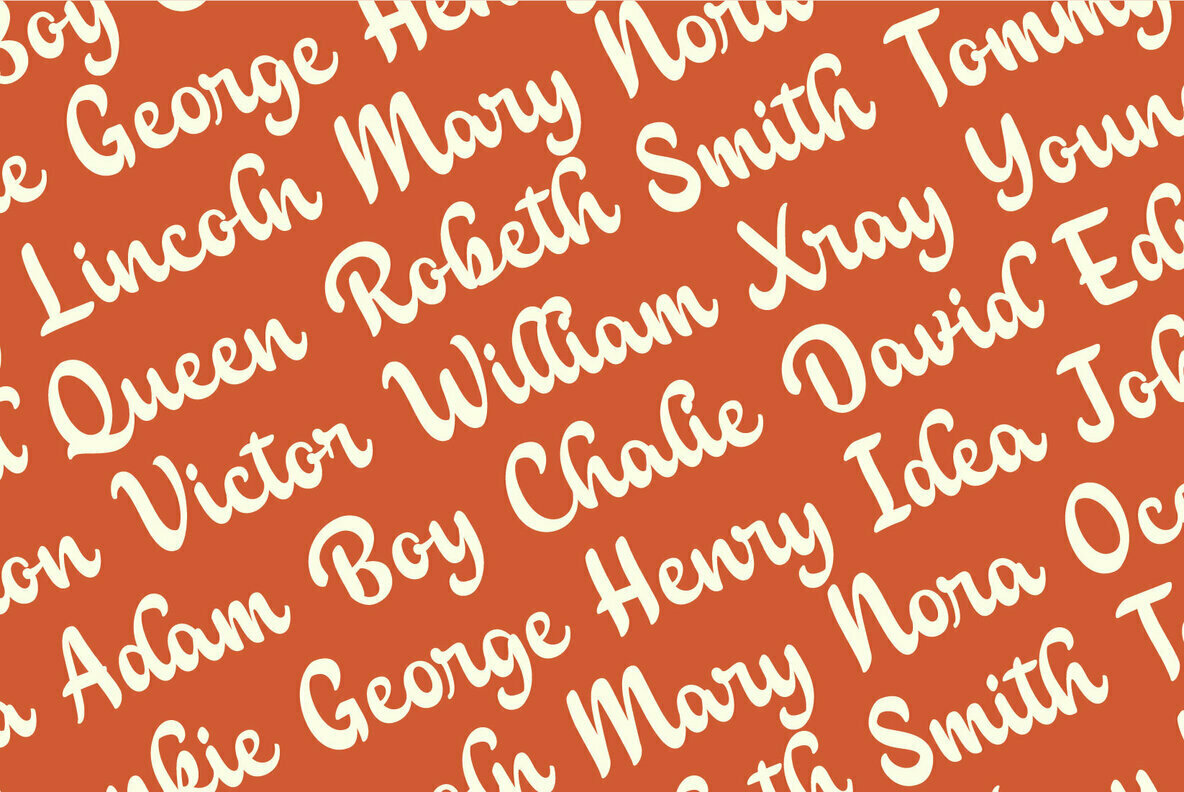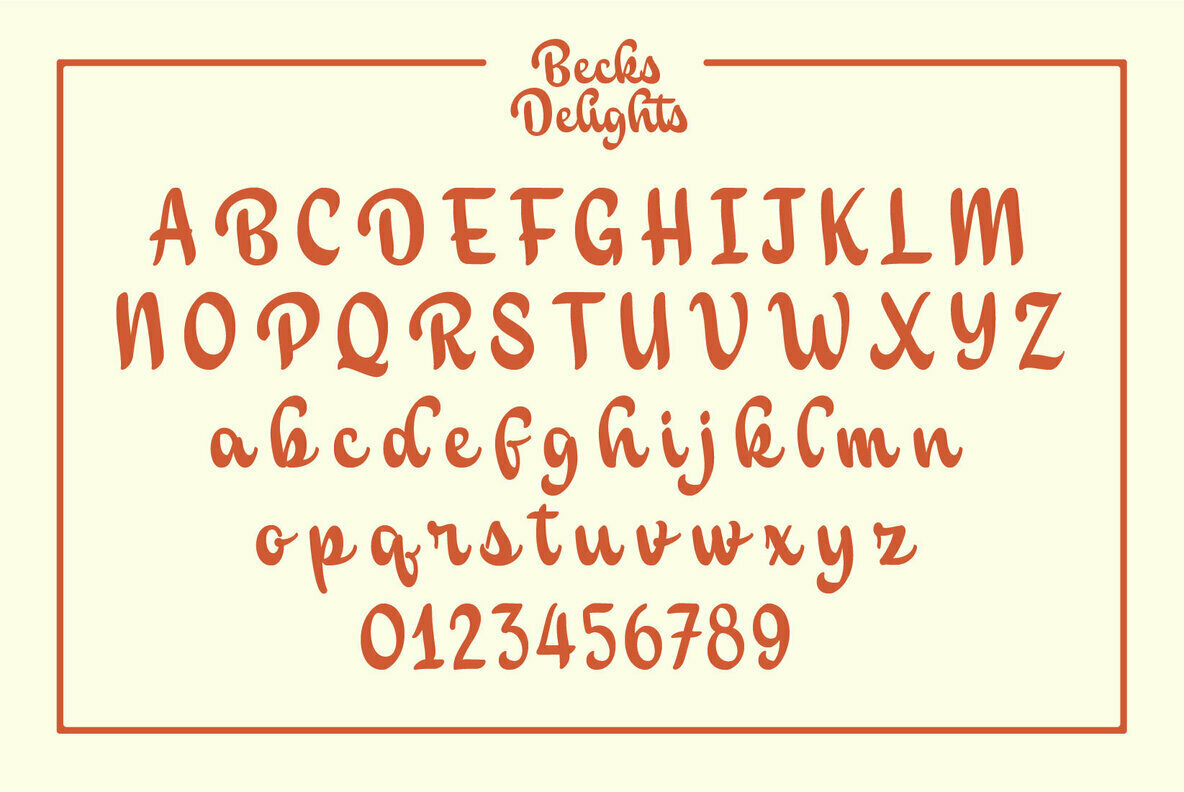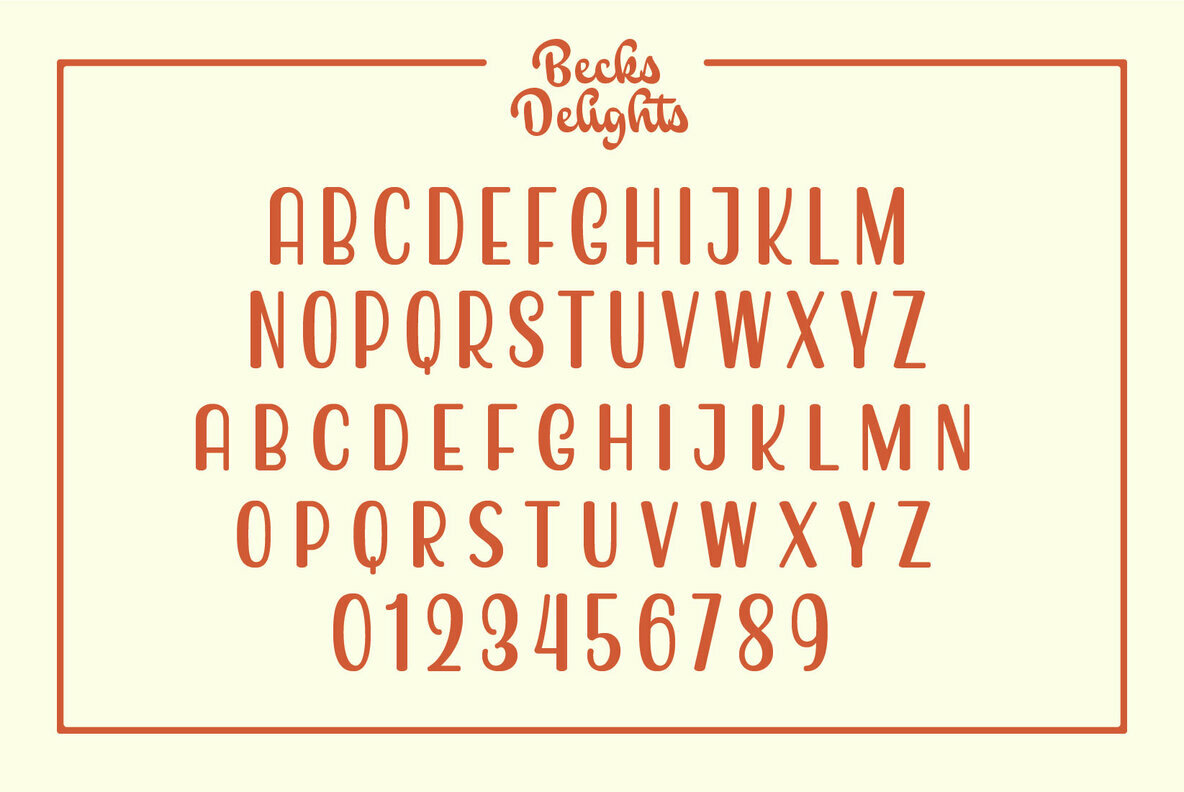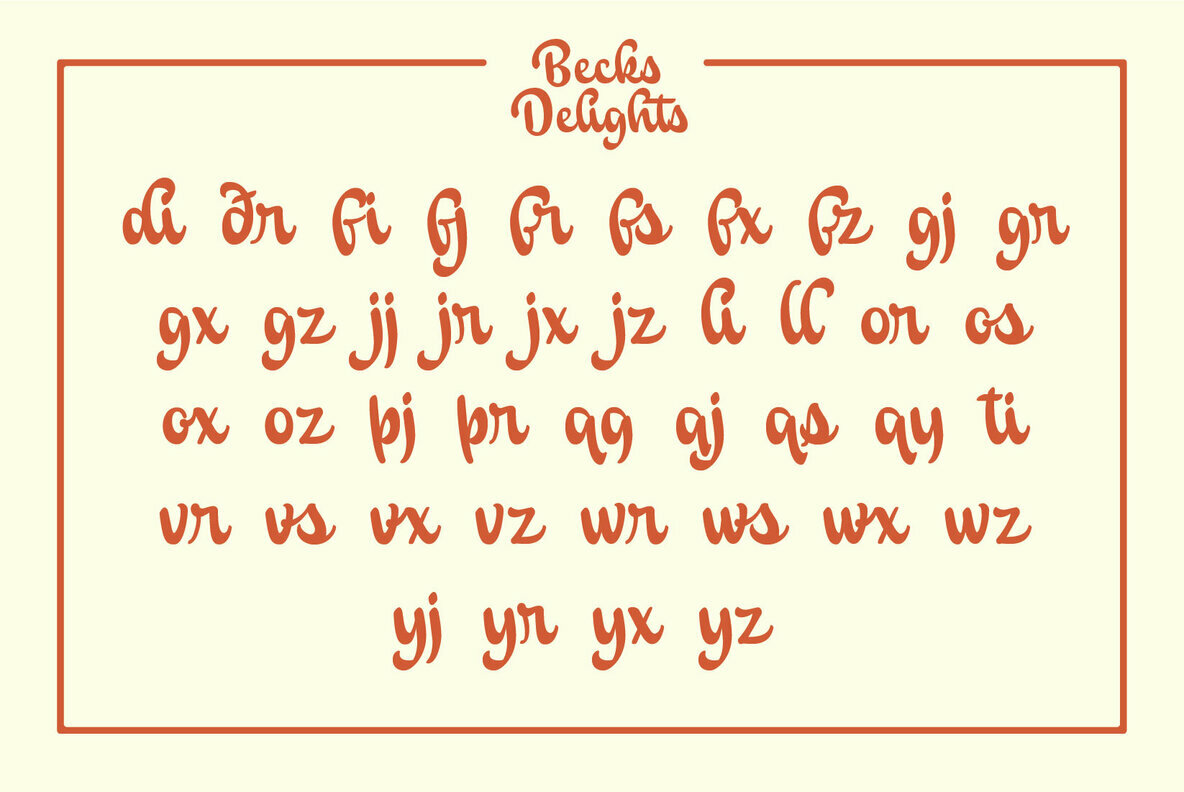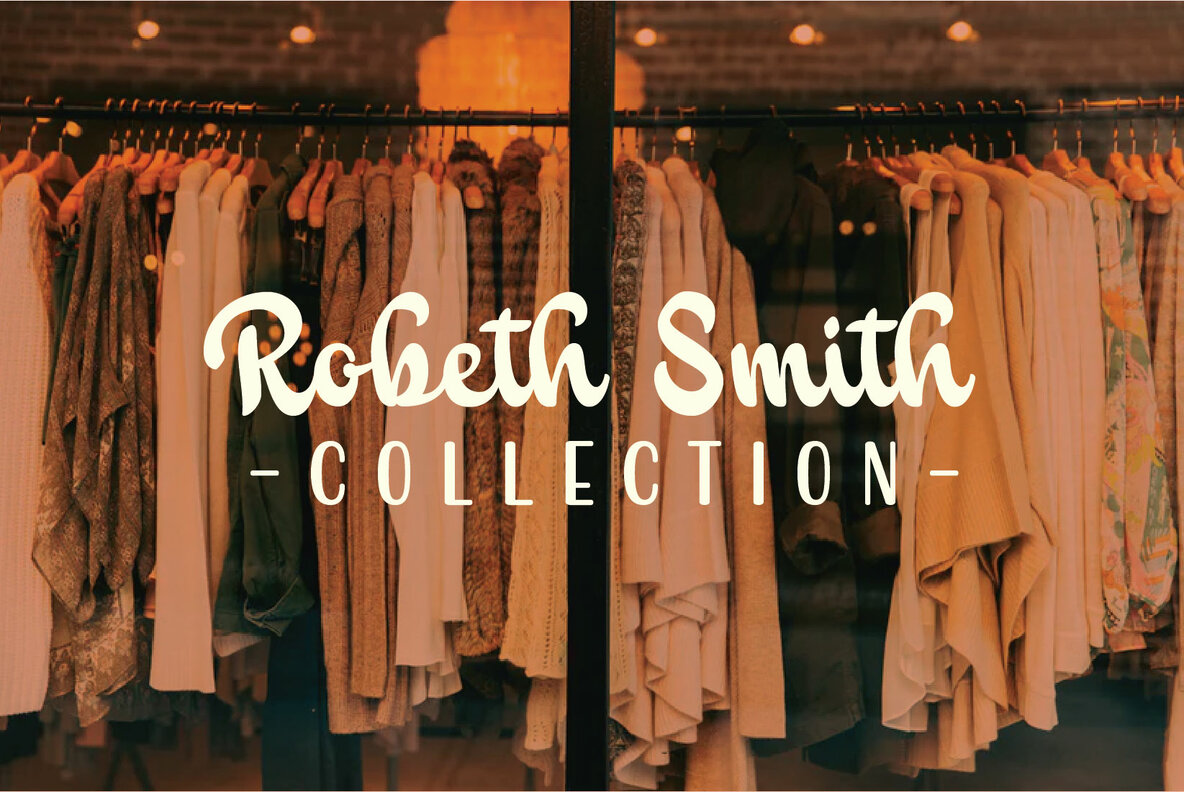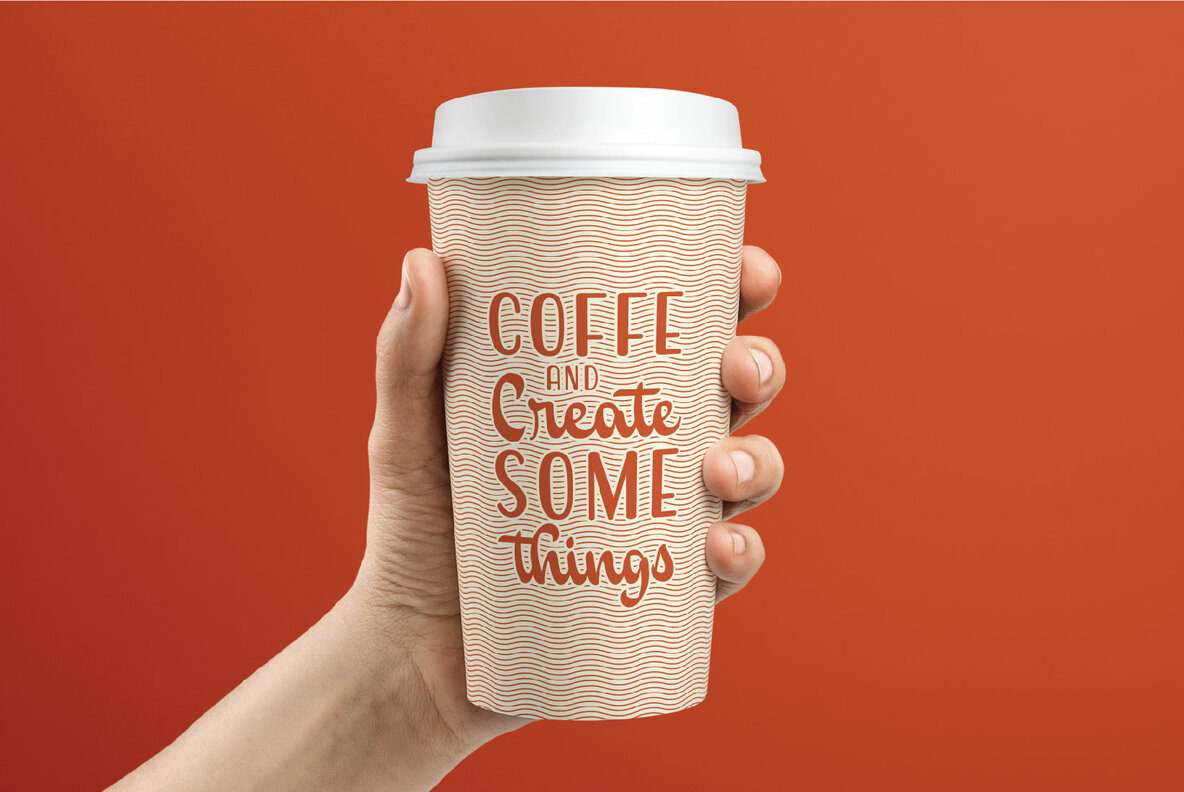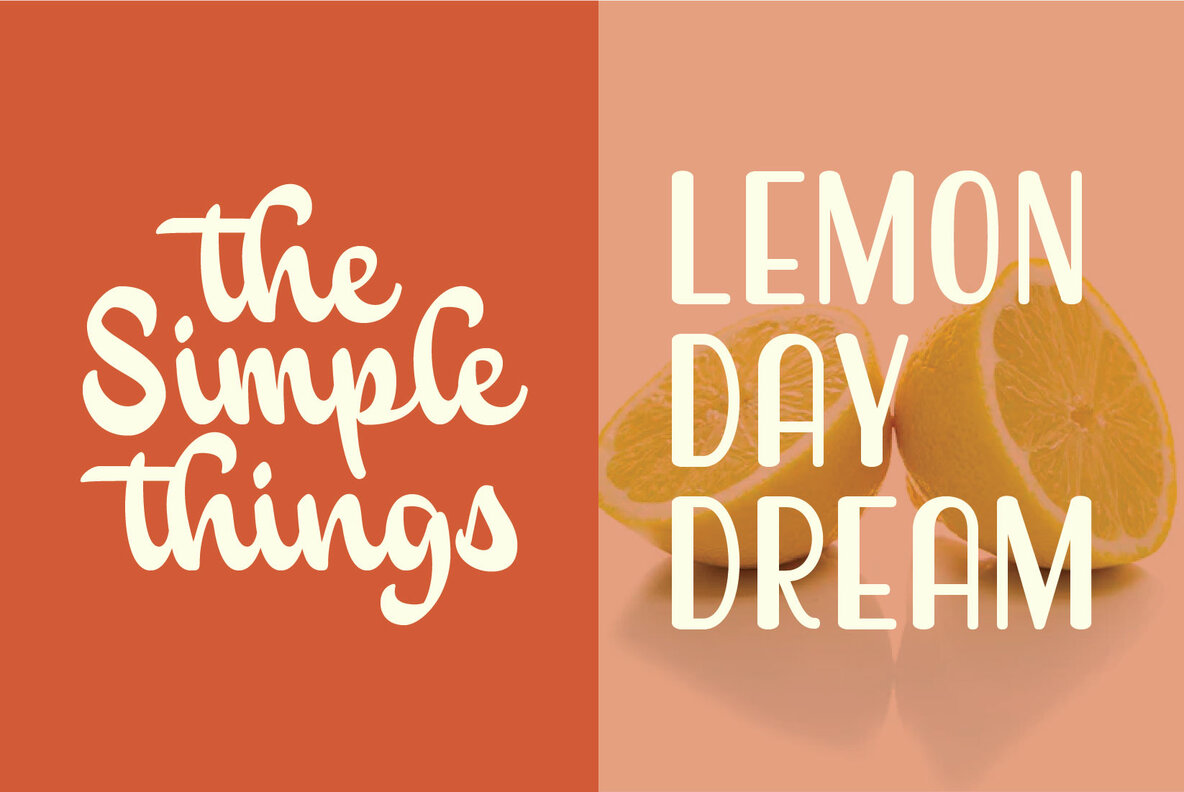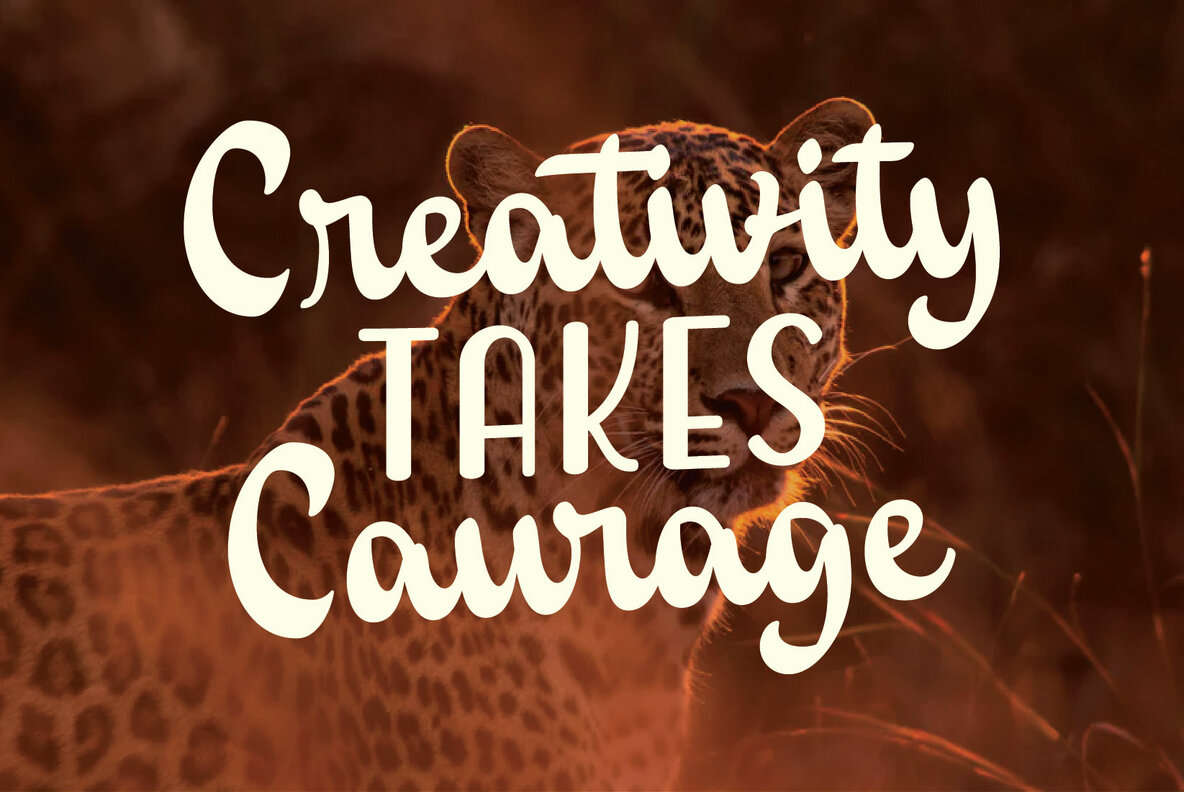
Becks Delight Font
Becks Delight offers a timeless elegance through its vintage clean brush script style. Designed to cater to the nuanced demands of branding and logo design, this font combines sophistication with versatility. Its feature of Stylistic Alternates provides flexibility, allowing designers to creatively pair letters for a personalized touch.Becks Delight: Vintage Clean Brush Script